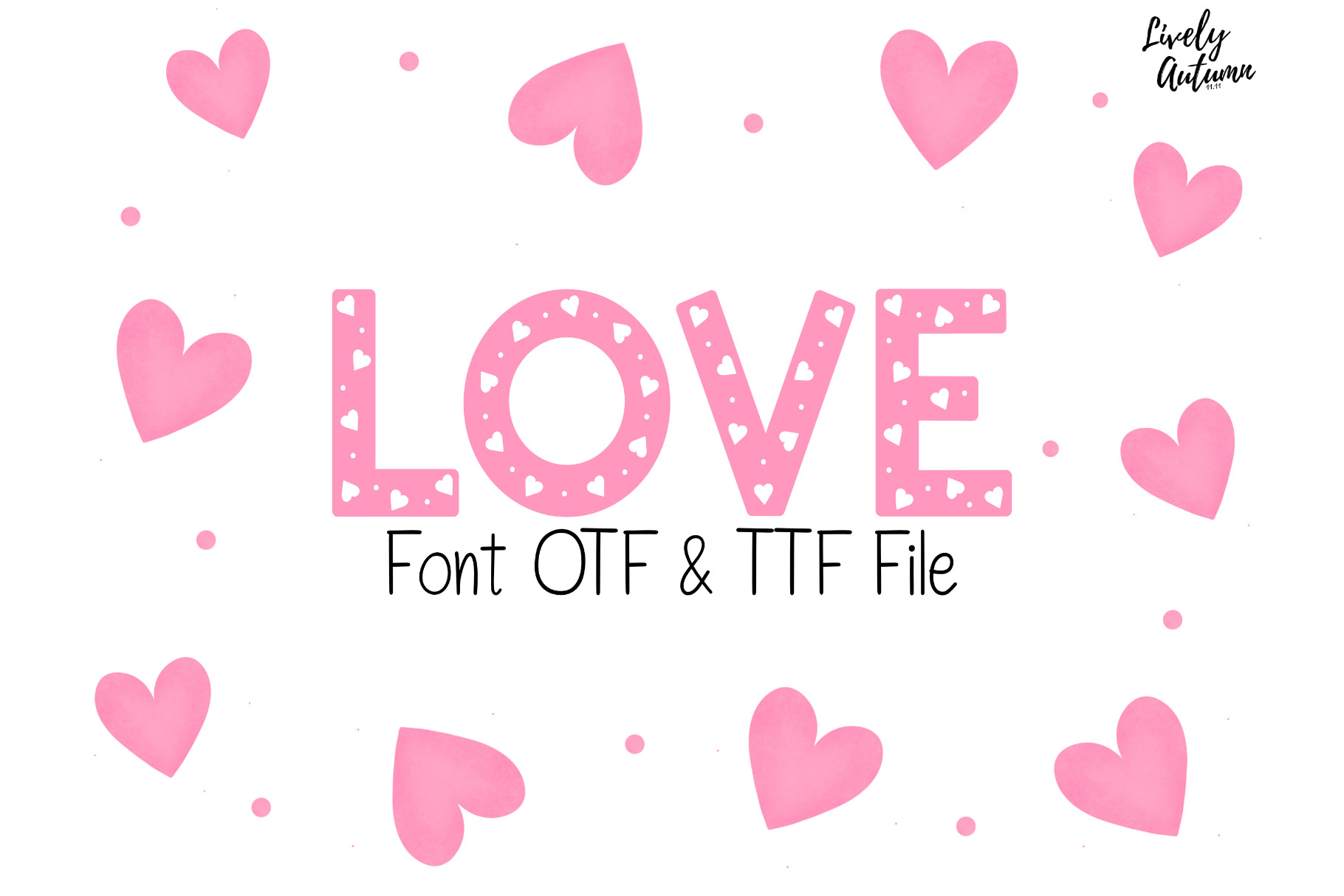
Valentine Heart Decor Font
The Heart Decor Font is a fancy decorative font decorated with a little heart inside each letter. Perfect for your Valentine’s Day cards, romantic invitations, heartfelt messages, and much more.